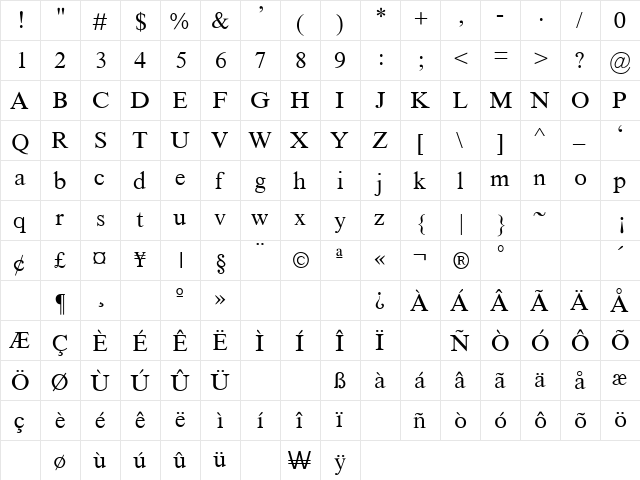
Timeless Regular Font Preview
Timeless Regular
Design Context for Timeless Typeface
Timeless offers clean, dependable letterforms without strong stylistic allegiance, making it a practical choice for designers who need flexibility.